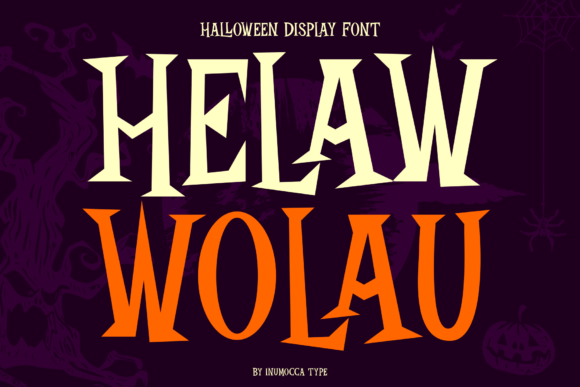
Journey through the world of typography with the Helaw Wolau Font, a serif masterpiece crafted by inumocca_type. This font exudes elegance and sophistication, making it the perfect choice for designers, artists, and creative professionals seeking to make a lasting impression.
Unleash your creativity and let Helaw Wolau elevate your designs to new heights. Its simple yet striking characters lend themselves effortlessly to a plethora of projects, including:
- Branding: Create logos, business cards, and marketing materials that radiate professionalism and style.
- Movie Titles: Capture the essence of your cinematic masterpiece with a title that commands attention.
- Headline Letters: Make your headlines pop with a font that demands to be read.
- Bookcovers or Book Content: Craft book covers and interior text that entice readers and immerse them in your literary world.
- Magazine Covers: Design magazine covers that leap off the shelves, captivating readers and leaving them eager to delve into your content.
- Posters: Create posters that resonate with your audience, delivering messages with impact and flair.
- Quotes Lettering: Transform ordinary quotes into works of art, inspiring and motivating your readers.
- Logos: Design logos that stand the test of time, projecting an image of strength and stability.
- Creative Projects: Let your imagination run wild and explore the endless possibilities that Helaw Wolau offers.
With Helaw Wolau's captivating presence, your designs will leave an indelible mark on your audience. Embark on a typographic adventure today and witness the transformative power of this extraordinary font.